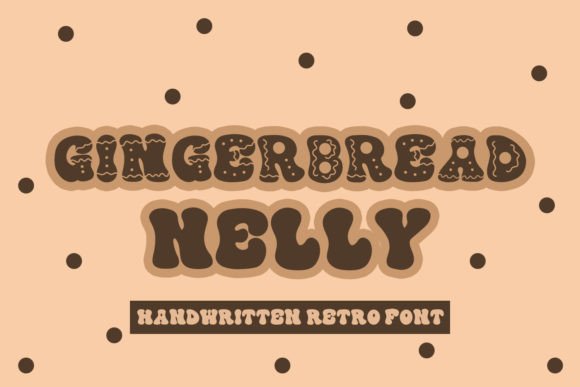
Introducing Gingerbread Nelly - the ultimate Christmas Retro Font that will instantly transport you to a whimsical winter wonderland! Created by freelingdesignhouse, this font is the epitome of festive charm and will add a touch of nostalgia to all your holiday projects.
With its captivating gingerbread designs delicately adorning each letter, Gingerbread Nelly is the perfect choice for those looking to infuse their designs with a dose of sweetness and timeless style. This display font is specifically crafted to capture the essence of Christmas, making it ideal for creating eye-catching T-shirt designs, phone cases, greeting cards, invitations, mugs, and so much more!
Imagine the joy and delight your audience will experience when they lay their eyes on your creations! Gingerbread Nelly is designed to evoke emotions, spark memories, and create a warm and fuzzy feeling in the hearts of all who see it. Its retro charm will transport them back to treasured childhood moments, reminding them of the magic and wonder of the holiday season.
Whether you're designing for personal use or for your business, Gingerbread Nelly is a must-have font that will elevate your projects to new heights. Its versatility allows it to be used in a multitude of ways, giving you the freedom to explore your creativity and bring your ideas to life.